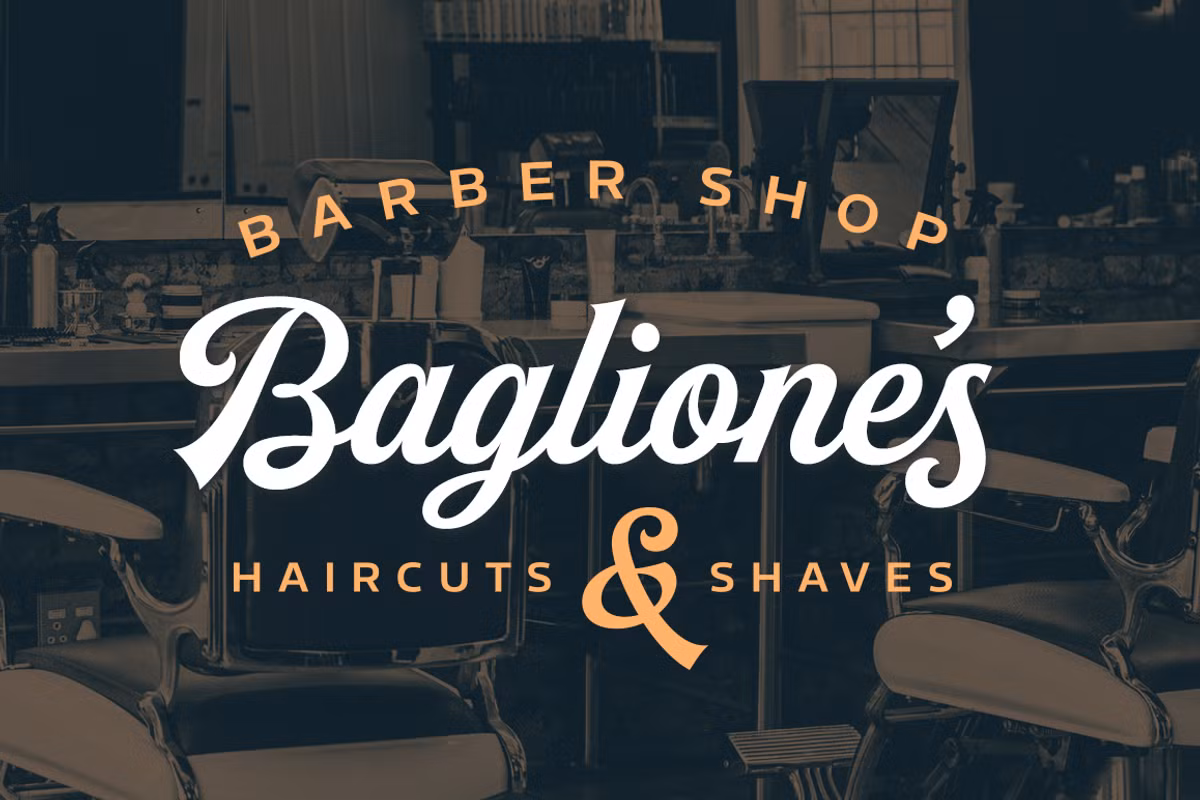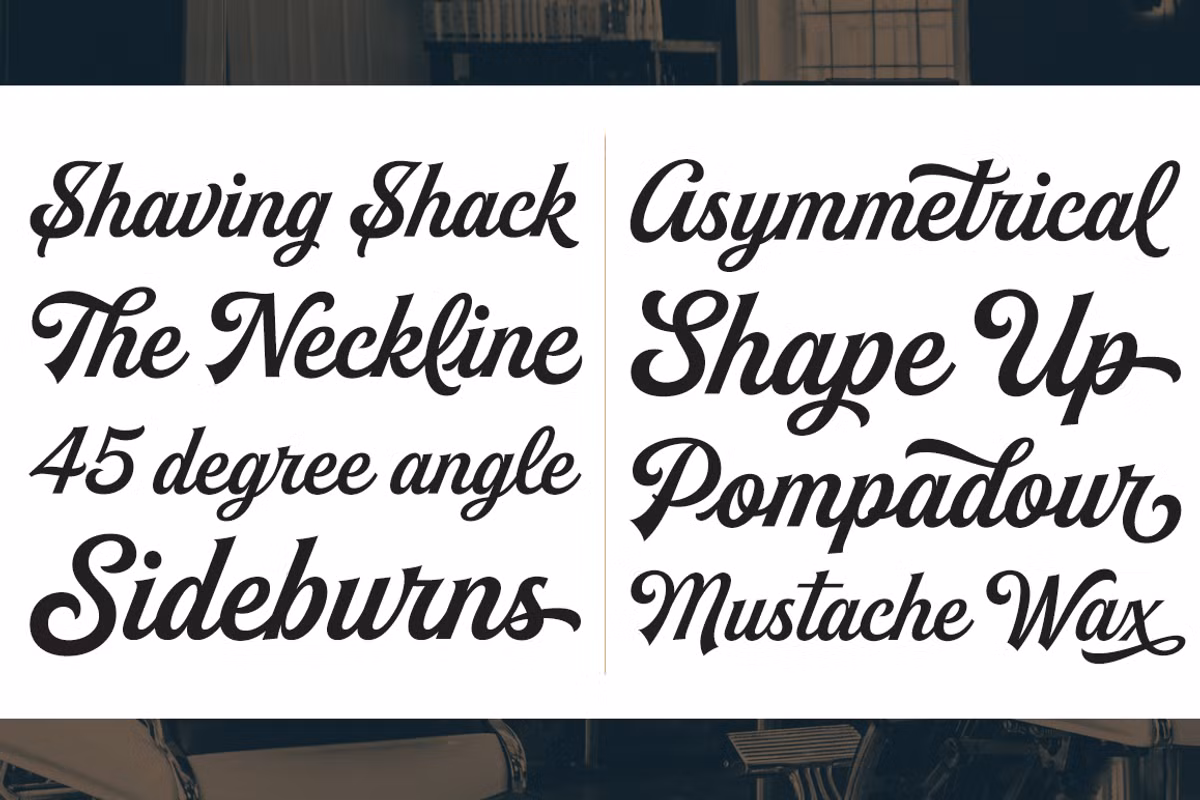
Buinton
Buinton: Versatile Vintage Script Typeface for Elegant Designs
Introduction to Buinton Typeface
Buinton is a beautiful script font that looks classy and old-fashioned. It has a fancy look that can make your projects look more sophisticated. What makes Buinton special is its unique details, like the serifs at the start of the strokes, the swash capitals, and its overall formal look. These features make it a great choice for designers who want to create elegant typography. You can use Buinton for a variety of projects, such as logos, t-shirt designs, or illustrations for editorials. It’s a versatile font that can help you bring your ideas to life.
Elegant script typography example showcasing Buinton typeface
Example of elegant typography using Buinton.
With its noble appearance, Buinton is perfect for adding a touch of elegance to your work. Whether you’re looking to create a refined logo or a beautiful illustration, Buinton is a great choice. Its unique features and formal design make it a must-have for any designer who wants to create high-quality typographic elements.
Design Style of Buinton
Buinton’s design style is a perfect mix of old and new. It has a classic script look with serifs that make it look fancy and elegant. The swash capitals add a bit of excitement and creativity, making the typeface great for many different uses. Every letter in Buinton is carefully designed to be both beautiful and easy to read. This balance of style and function makes Buinton a great choice for anyone looking for a typeface that is both artistic and practical.
The combination of classic and contemporary elements gives Buinton a unique look that is sure to stand out. Whether you’re using it for a formal occasion or a more casual project, Buinton is a great option. Its readability and aesthetic appeal make it a versatile typeface that can be used in a variety of contexts.
Detailed view of Buinton's character set highlighting swashes and ligatures
Details showcasing Buinton’s unique character set.
Overall, Buinton is a well-designed typeface that is both functional and beautiful. This font really catches your eye because of its old-fashioned look, which makes it perfect for projects that want to bring back memories or have a classic feel. The way it combines swashes and ligatures adds a lot of depth to the design, letting you put your own personal touch on your typography.
Character Sets and Versatility
Buinton boasts an extensive array of alternate characters, swashes, and ligatures, which significantly enhance its versatility. This variety allows designers to customize their typography, making each project unique. The alternate characters provide options that can shift the overall tone of the text, catering to different audiences and design needs.
Buinton also comes with a range of tails in different shapes and sizes. This is really helpful when you want to create logos that look old-fashioned or sporty, as you can choose a tail that fits the style you’re going for. With all the options available in Buinton, designers have the freedom to experiment with different styles and create unique typography that grabs attention.
Buinton typeface used in a logo design showcasing its versatility
Logo design example using Buinton typeface.
This flexibility allows designers to have fun and be creative, making it easier to produce distinctive and eye-catching designs. Buinton has a lot of character options, which lets you be creative and make your design unique, keeping it interesting and fun for a long time.
Use Cases for Buinton Typeface
The versatility of Buinton makes it suitable for a wide range of use cases. Here are some applications where this typeface truly shines:
• Logos: Buinton’s elegant curves and unique swashes make it an excellent choice for logo design, especially for brands aiming for a vintage or high-end aesthetic.
• Lettering Artwork: Artists can utilize Buinton for custom lettering projects, as its varied characters provide ample opportunity for creativity and expression.
• T-Shirt Designs: Buinton’s stylish and bold look makes it a great choice for creating eye-catching graphics on t-shirts, resulting in designs that really stand out and grab attention.
• Editorial Illustrations: Buinton can enhance the visual appeal of editorial content, providing an elegant touch to magazines, brochures, and publications.
• Invitations and Greeting Cards: The vintage charm of Buinton lends itself beautifully to invitations, making it a popular choice for weddings and special events.
These examples illustrate just a few of the numerous possibilities for incorporating Buinton into your design projects. Its adaptability ensures that it can meet the needs of various contexts, making it a valuable addition to any designer’s toolkit.
Pairing Suggestions for Buinton
When it comes to typography, pairing fonts effectively can enhance your design’s overall impact. Buinton pairs beautifully with a variety of typefaces, creating a balanced and harmonious visual experience. Here are some pairing suggestions:
• Sans-Serif Fonts: Pair Buinton with clean sans-serif fonts like Montserrat or Open Sans. The contrast between the ornate script of Buinton and the simplicity of sans-serif creates a modern yet classic look.
• Serif Fonts: For a classic look, try pairing Buinton with a serif font like Merriweather or Playfair Display. This mix brings a touch of old-school charm to your design while keeping it easy to read.
• Monospace Fonts: For a unique twist, try pairing Buinton with a monospace font like Courier New. This juxtaposition of styles adds an eclectic touch to your design.
Choosing the right pairings can elevate your design and create a memorable visual identity. Experimenting with different combinations will help you discover the best fit for your unique projects.
Licensing and Availability
Buinton is a typeface that comes with two font files, Buinton.otf and Buinton-PUA.otf, which is the PUA encoded version. This makes it easy to install and use in different design software applications. To help you get started, an Instruction PDF is included, which provides guidance on how to use the typeface. With this, you can quickly start using Buinton in your projects.
When you’re thinking about using Buinton, it’s really important to look at the licensing options carefully. You need to make sure the terms work for your project, whether it’s for personal or commercial use. By understanding the licensing, you can use this versatile typeface in the right way. This will help you get the most out of Buinton and ensure you’re using it correctly.
In summary, Buinton is not only a beautiful script typeface but also a powerful tool for designers. Its elegant features, extensive character set, and adaptability make it an essential asset for anyone looking to create stunning typographic designs.
Buinton is a really versatile old-style script font that can be used in lots of different ways. It looks classy and has a big set of characters, which makes it great for all sorts of design projects. You can use it to make a logo, design clothes, or create pictures for magazines – it’s really good for anything that needs to look elegant and stylish.
If you add Buinton to your collection of fonts, you’ll be able to make your work stand out and look really professional. It’s a great choice for anyone who wants to give their designs a bit of extra flair. With its classic look and flexible design, Buinton is perfect for making your projects look amazing. So why not give it a try and see what you can create with this fantastic font?